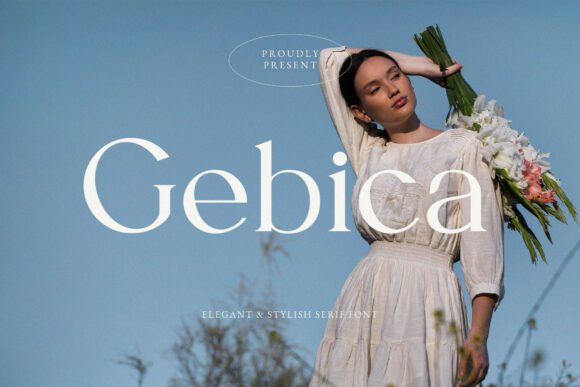
Gebica Font: Elevate Your Design with Modern Elegance
When it comes to creating visually stunning designs, the right typography can make all the difference. Introducing Gebica, a modern and classy typeface that’s perfect for adding a touch of sophistication to your projects. In this article, we’ll dive into the world of Gebica font, exploring its features, uses, and benefits, as well as provide tips on how to make the most of this versatile typeface.
What is Gebica Font?
Gebica is a contemporary typeface designed to make a statement. Its clean lines and smooth curves give it a sleek, modern look that’s perfect for use as a display font for headings, logos, branding, magazines, product packaging, and invitations. Whether you’re a designer, entrepreneur, or simply someone who appreciates good typography, Gebica is an excellent choice for anyone looking to elevate their design game.
Key Features of Gebica Font
- Modern and Classy Design: Gebica boasts a fresh, modern aesthetic that’s perfect for designs that require a touch of sophistication.
- Clean Lines and Smooth Curves: The font’s clean lines and smooth curves create a beautiful, elegant look that’s sure to impress.
- Versatile: Gebica can be used for a wide range of design projects, from headings and logos to branding, magazines, and product packaging.
- Easy to Read: Despite its elegant design, Gebica remains highly legible, making it perfect for use in a variety of contexts.
Uses of Gebica Font
Gebica’s versatility makes it an excellent choice for a wide range of design projects. Here are some of the many ways you can use Gebica:
- Headings and Titles: Use Gebica to create stunning headings and titles that grab attention and add a touch of elegance to your designs.
- Logos and Branding: Gebica’s modern, classy design makes it perfect for use in logos and branding materials, helping to establish a strong visual identity for your business.
- Magazines and Editorials: Add a touch of sophistication to your magazine or editorial design with Gebica’s elegant typography.
- Product Packaging: Gebica’s clean lines and smooth curves make it an excellent choice for product packaging, adding a touch of luxury to your products.
- Invitations and Events: Use Gebica to create beautiful invitations and event materials that exude elegance and sophistication.
Benefits of Using Gebica Font
So why choose Gebica for your design projects? Here are just a few benefits of using this versatile typeface:
- Instantly Elevates Your Design: Gebica’s modern, classy design instantly adds a touch of sophistication to your projects, helping you to create visually stunning designs.
- Versatile: Gebica can be used for a wide range of design projects, making it an excellent addition to your font library.
- Easy to Read: Despite its elegant design, Gebica remains highly legible, making it perfect for use in a variety of contexts.
- Unique and Memorable: Gebica’s unique design helps your projects to stand out from the crowd, making them more memorable and engaging.
Tips for Using Gebica Font
To get the most out of Gebica, here are a few tips to keep in mind:
- Use it as a Display Font: Gebica is designed to be used as a display font, so use it to create headings, titles, and other prominent text elements.
- Experiment with Different Sizes and Colors: Gebica looks great in a variety of sizes and colors, so don’t be afraid to experiment and find the perfect combination for your design.
- Pair it with Other Fonts: Gebica pairs well with a range of other fonts, so try combining it with different typefaces to create a unique and visually interesting design.
In conclusion, Gebica is a modern and classy typeface that’s perfect for adding a touch of elegance to your design projects. Its clean lines, smooth curves, and versatile design make it an excellent choice for a wide range of applications, from headings and logos to branding, magazines, and product packaging. With its ease of use, unique design, and instant ability to elevate your design, Gebica is an excellent addition to any font library.
- What is Gebica font? Gebica is a modern and classy typeface designed for use as a display font for headings, logos, branding, magazines, product packaging, and invitations.
- What are the key features of Gebica font? Gebica boasts clean lines, smooth curves, and a versatile design that makes it perfect for a wide range of design projects.
- How can I use Gebica font? Gebica can be used for a variety of design projects, including headings, logos, branding, magazines, product packaging, and invitations.